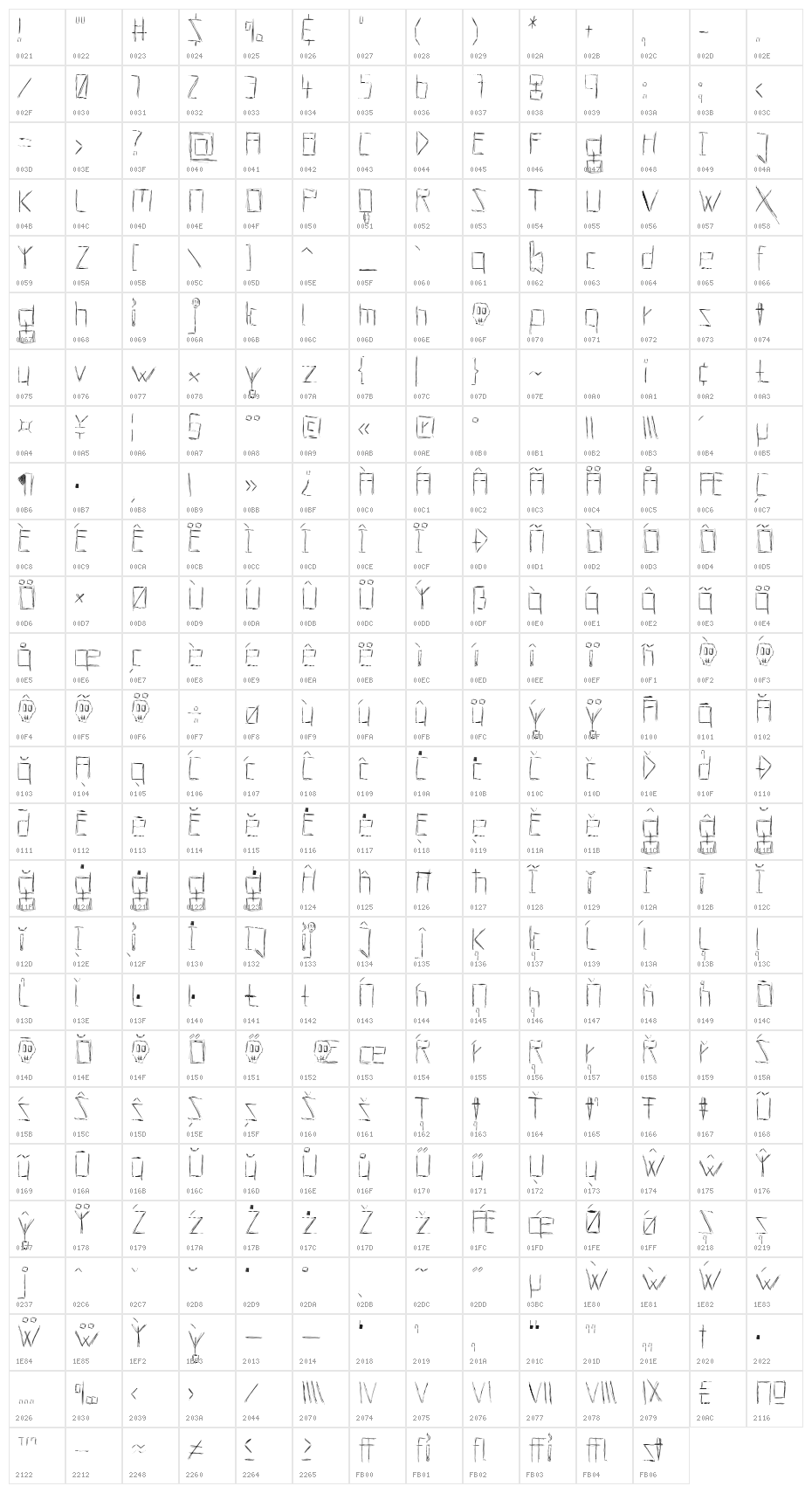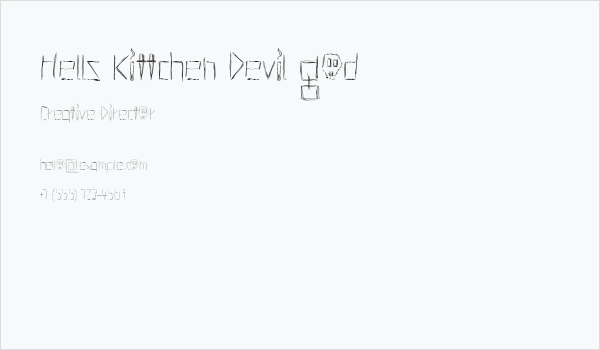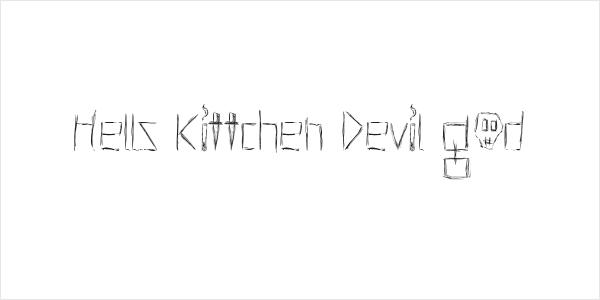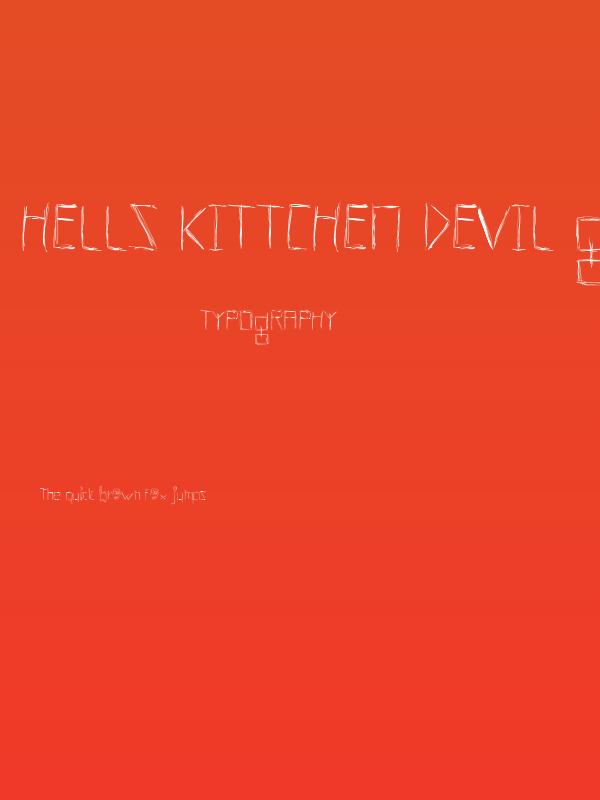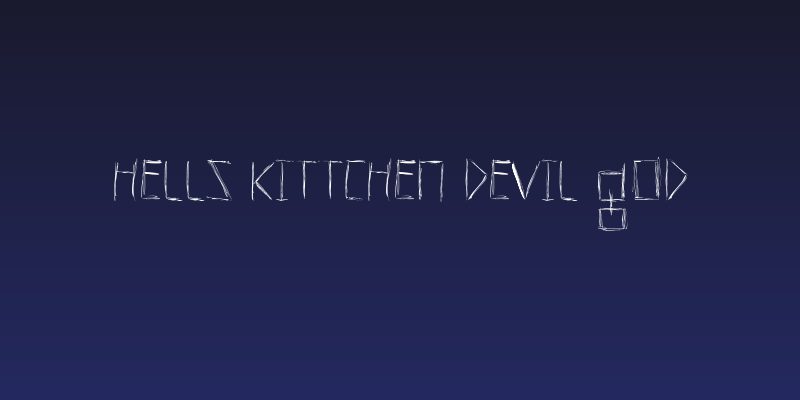
Hells Kittchen Devil God Font
Hells Kittchen Devil God Description
This font features a unique, hand-drawn style with a rough, sketch-like appearance. Each character is composed of jagged lines and uneven strokes, giving it a chaotic and edgy feel. The uppercase and lowercase letters maintain a consistent aesthetic, with angular shapes and irregular edges. Numbers and special characters follow the same design principles, contributing to the overall cohesive look. The font exudes a rebellious and unconventional vibe, making it suitable for projects that require a bold and distinctive visual impact.
Overall StyleEdgy, Chaotic, Hand-drawn
Proposed ProjectsIdeal for album covers, poster designs, horror-themed graphics, and edgy branding projects.